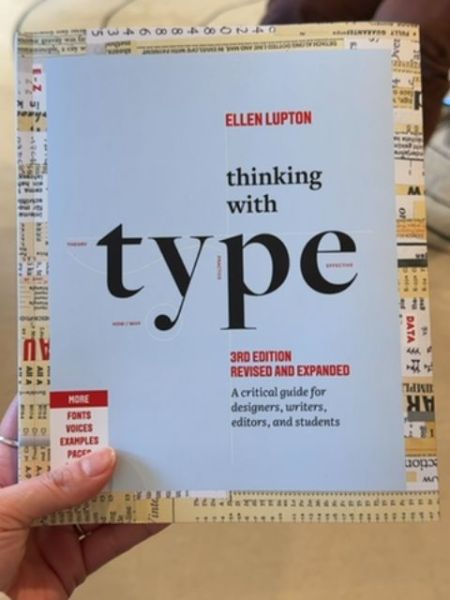
Thinking with Type
A critical guide for designers, writers, editors, and students focusing on the use of typography.
2004
USA
The typography on the cover is diverse, reflecting the subject matter. A mix of serif and sans-serif fonts is used, creating a clean yet dynamic layout. The word 'type' is in a large serif font, drawing immediate attention, while other text uses a crisp sans-serif, offering contrast and clarity.
The cover features a minimalist design with a prominent use of the word 'type'. The background is a light blue color, complemented by a border of typographic elements and measurements, emphasizing the book's focus on typography.
- Authored by Ellen Lupton, a well-known design writer.
- This is the third edition, revised and expanded.
- Covers a wide range of typography topics including fonts, voices, and examples.